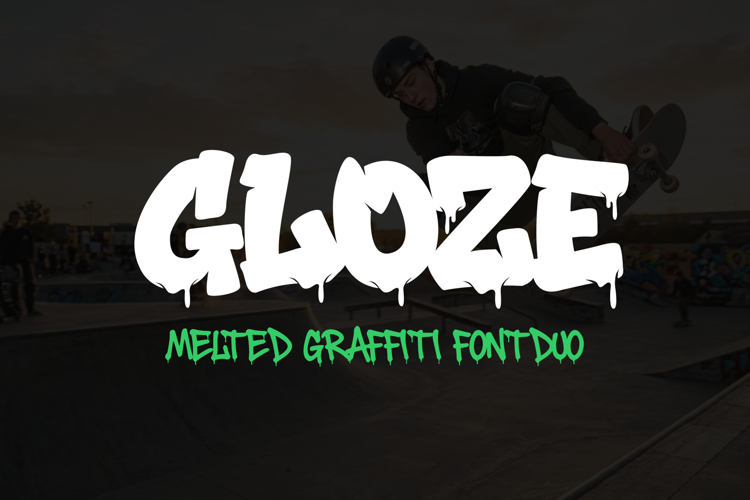
Gloze - Graffiti Font | Urban Melt Drip Style
Gloze is a striking graffiti typeface that embodies the raw, unfiltered energy of urban street culture. Inspired by real-world tagging, spray paint techniques, and the natural flow of dripping paint, this font delivers an authentic graffiti experience that stands out in any creative project. Designed with expressive detail and bold character, Gloze transforms simple text into powerful visual statements.
At its core, Gloze captures the essence of street art. Each letter is shaped with organic curves and irregular edges, mimicking the spontaneous motion of spray-painted strokes. The melting effect adds a dynamic layer of realism, as if the paint is still fresh and flowing. This unique feature makes Gloze more than just a font—it becomes a visual representation of movement, creativity, and rebellion.
The typeface includes a complete set of uppercase and lowercase characters, allowing designers to create flexible and engaging compositions. With multilingual support, Gloze can be used across a wide range of languages, making it suitable for global branding and communication. The numbers and punctuation are carefully designed to match the overall graffiti aesthetic, ensuring consistency throughout your design.
Gloze is highly versatile and works across multiple creative fields. It is ideal for streetwear branding, music artwork, posters, logos, packaging, and digital content such as social media graphics and YouTube thumbnails. Its bold presence makes it perfect for headlines and titles, while its artistic style adds personality to any visual project.
One of the standout features of Gloze is its ability to evoke emotion. The dripping effect conveys intensity, energy, and movement, making designs feel alive and impactful. This makes it particularly effective for projects that aim to capture attention and communicate a strong message.
From a technical standpoint, Gloze is optimized for both print and digital use. It maintains clarity and readability at large sizes while preserving its detailed characteristics. Whether used on posters, apparel, or screens, the font retains its visual strength and authenticity.
Designers can also experiment with layering and color combinations to enhance the melting effect. By combining styles or adding shadows and textures, Gloze can achieve a wide range of creative outcomes, from clean urban looks to complex graffiti compositions.
Gloze is not just a typeface—it is a tool for creative expression. It reflects the spirit of street artists who use public spaces as their canvas, turning ordinary surfaces into extraordinary works of art. By incorporating this font into your projects, you bring that same energy and authenticity into your designs.
If you are looking for a graffiti font that offers bold style, artistic freedom, and strong visual identity, Gloze is an excellent choice. It empowers designers to create impactful, memorable designs that resonate with modern audiences and urban culture.